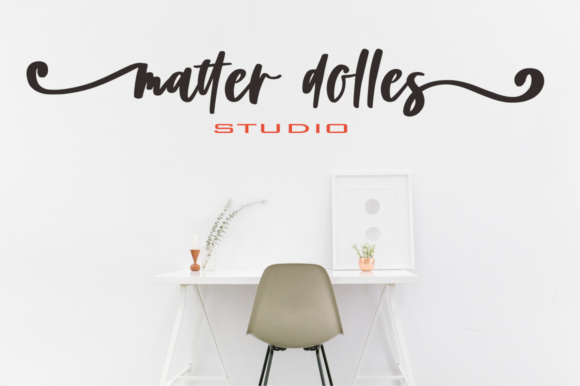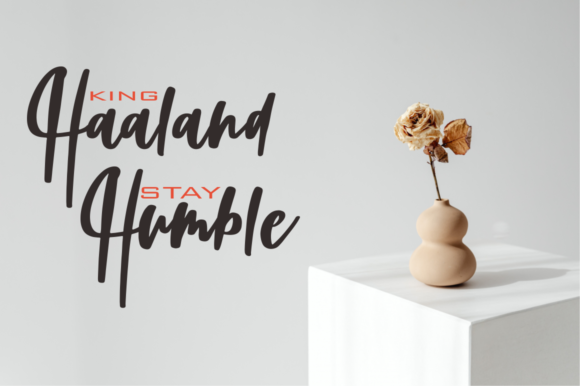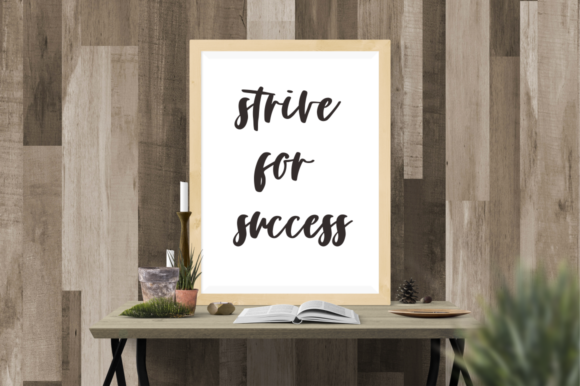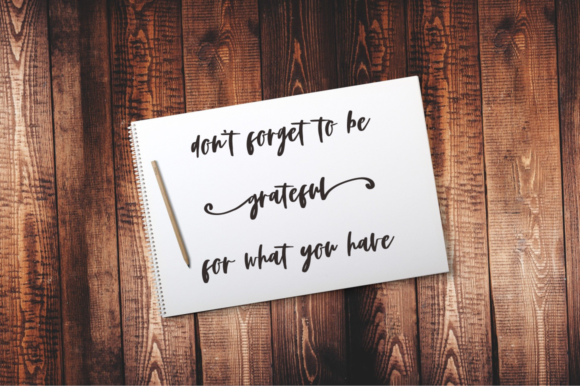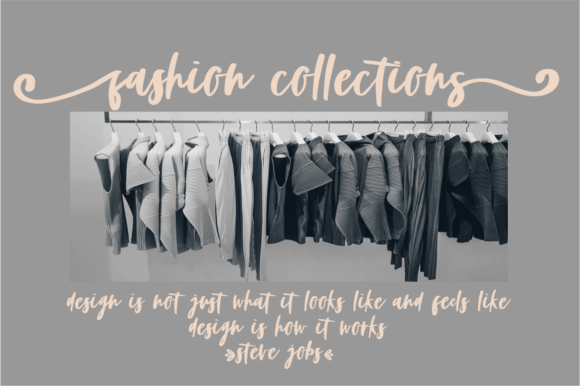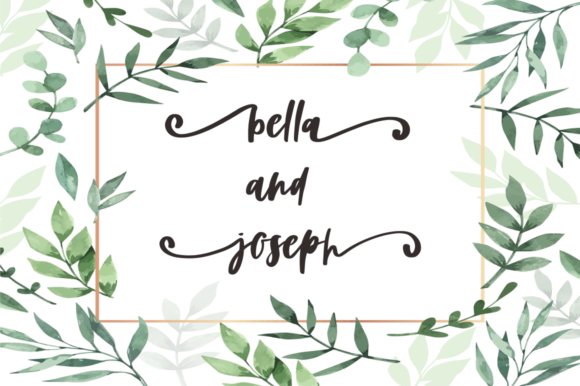
Discovering the Perfect Script Font: Holla Romansa
Have you ever found yourself sitting at your desk, staring at a blank canvas, trying to come up with the perfect design concept? The blank page seems to mock you, daring you to take a chance and let your creativity shine. For designers, this is a familiar feeling – the thrill of the unknown, the excitement of bringing a new idea to life. And then, it hits you: the perfect font. A delicate script that flows effortlessly, inviting the viewer to indulge in its beauty.
This is where the Holla Romansa Font comes in – a stunning script font designed to add a touch of elegance and sophistication to any design. Whether you’re crafting wedding invitations, branding a new company, or creating a romantic movie title, this font is sure to captivate your audience. Its delicate curves and flowing lines make it a valuable asset for designers, allowing them to convey emotions and tell stories in a unique and captivating way.
Holla Romansa Font Key Features
- Unique Characteristics: Hand-drawn and hand-painted design elements, giving it a unique and romantic feel
Holla Romansa Font Review
Holla Romansa Font is a beautifully crafted script font that I’ve had the pleasure of working with. ✨ The first thing that caught my attention was its elegant and sophisticated design. The font’s flowing lines and subtle flourishes give it a luxurious feel that’s perfect for creating a sense of refinement and sophistication in any design project.
Here are some of the things that work well with Holla Romansa Font: ✨
- Elegant and sophisticated design
- Perfect for creating a sense of refinement and sophistication
- Beautifully crafted script font
- Works well for headings, titles, and body text
- May not be suitable for very small text sizes
- Can be difficult to read in certain font sizes or combinations
- May require additional styling to achieve the desired look
Overall, I’m really impressed with Holla Romansa Font. It’s a beautiful and sophisticated font that’s perfect for creating a sense of refinement and elegance in any design project. With a little care and attention, it can be a great addition to any font collection.
Tips for Getting the Most Out of Holla Romansa Font
Use Holla Romansa Font to add a touch of elegance and sophistication to your designs.
Pair the font with a bold, modern design to create a striking contrast.
Holla Romansa Font is perfect for:
Business cards and marketing materials.
Wedding and event signage.
Any design project that requires a touch of elegance and sophistication.
Alternatives to Holla Romansa Font
Pacifico is a beautiful, elegant script font that is perfect for creating a romantic and luxurious feel in your designs. It’s great for use in wedding invitations, wedding stationery, and other high-end branding projects. Pacifico is a bit more refined and sophisticated than Holla Romansa Font, making it ideal for projects that require a touch of class.
Comparison: While Holla Romansa Font has a more rustic and vintage feel, Pacifico is sleeker and more modern. If you want a font that exudes luxury and sophistication, Pacifico is the better choice.
Great Vibes is a stylish and elegant script font that’s perfect for creating a sense of joy and celebration in your designs. It’s great for use in party invitations, social media graphics, and other projects that require a fun and lively feel. Great Vibes is similar to Holla Romansa Font in its playful and whimsical feel, but it’s a bit more refined and polished.
For optimal readability, we recommend using a font size between 12 and 18 points, depending on the context and intended audience. A line height of 1.2 to 1.5 times the font size is also recommended to ensure comfortable reading and minimize eye strain.